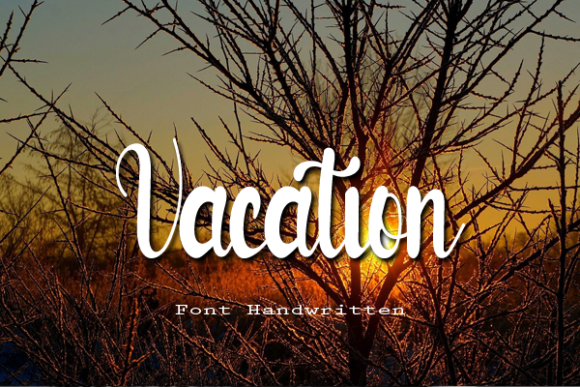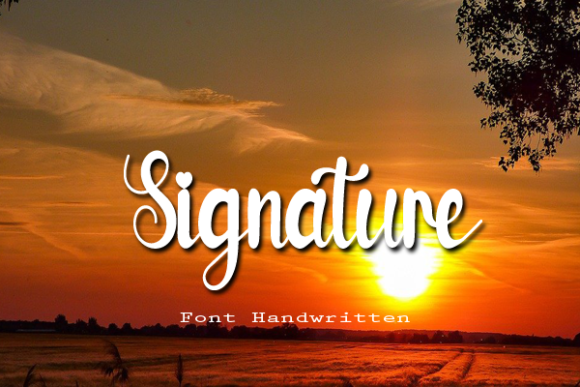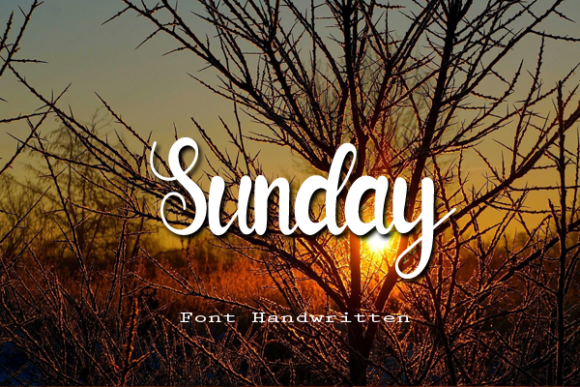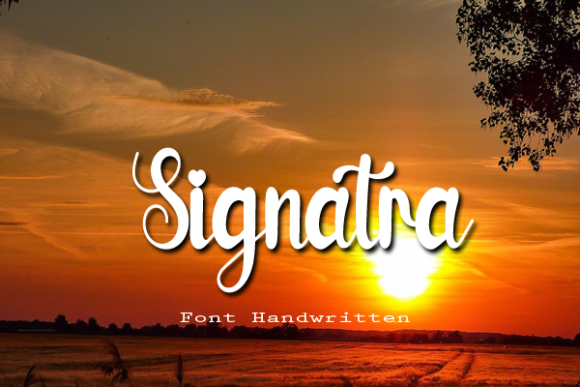
Sunlight Font
About Sunlight Font
Sunlight is a stylish and well-balanced handwritten font. It looks gorgeous on wedding invitations, thank you cards, quotes, greeting cards, logos, business cards and every other design which needs a customized touch.